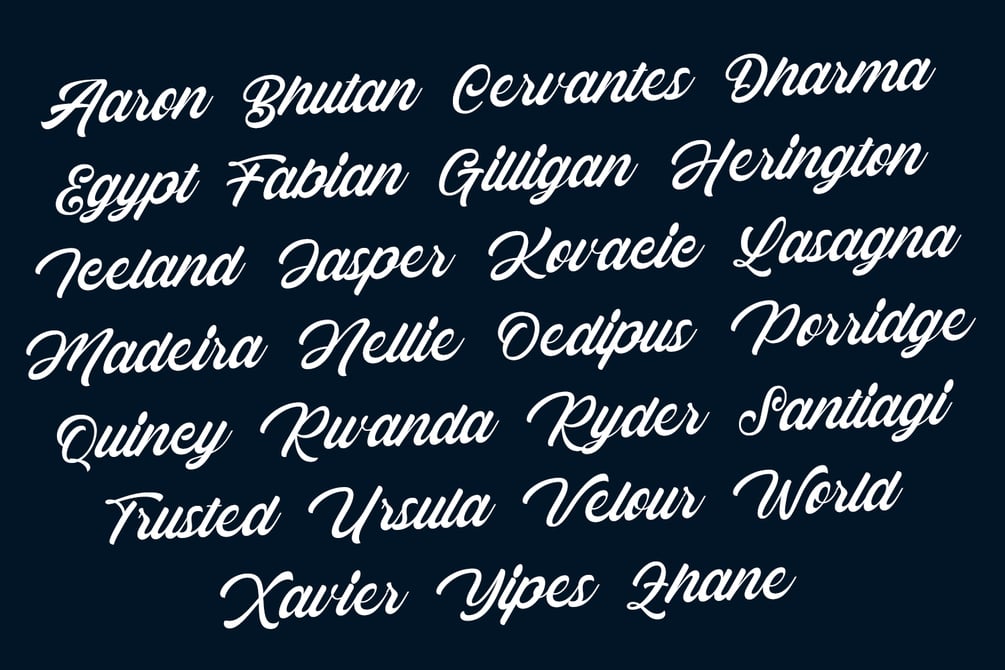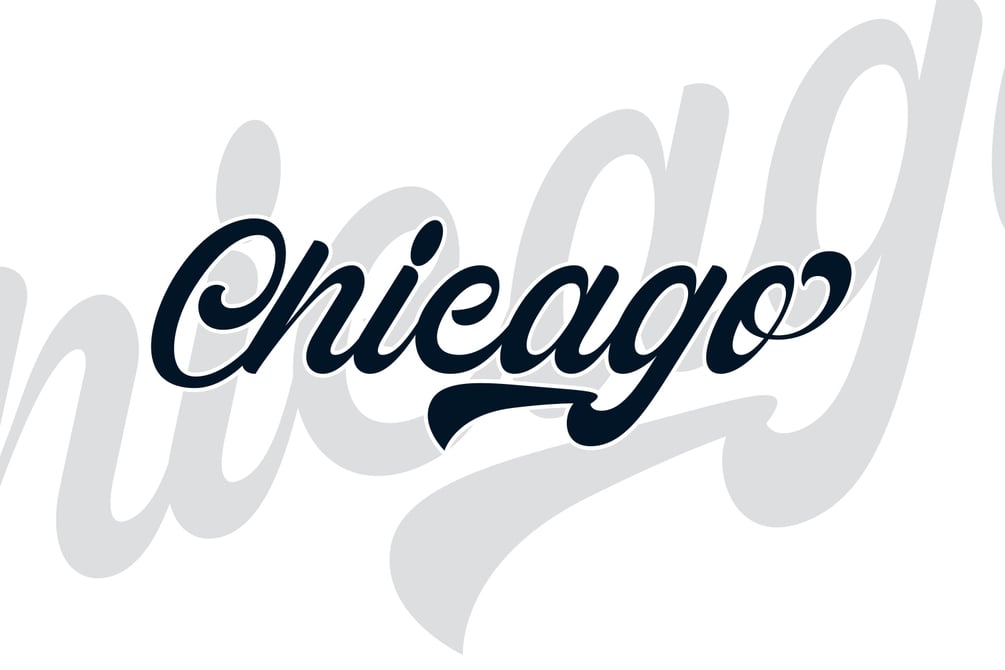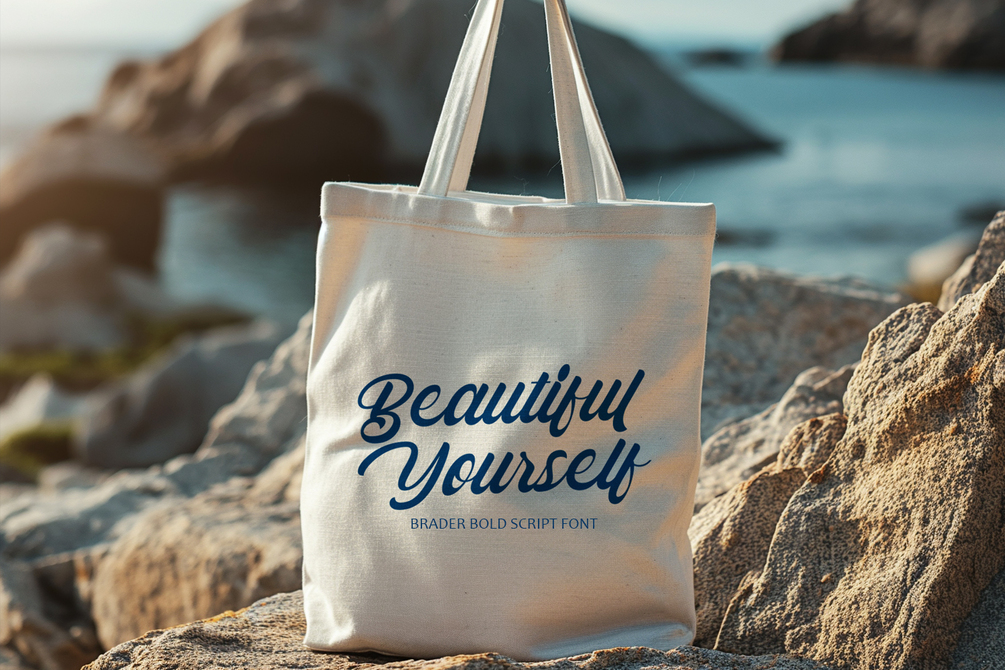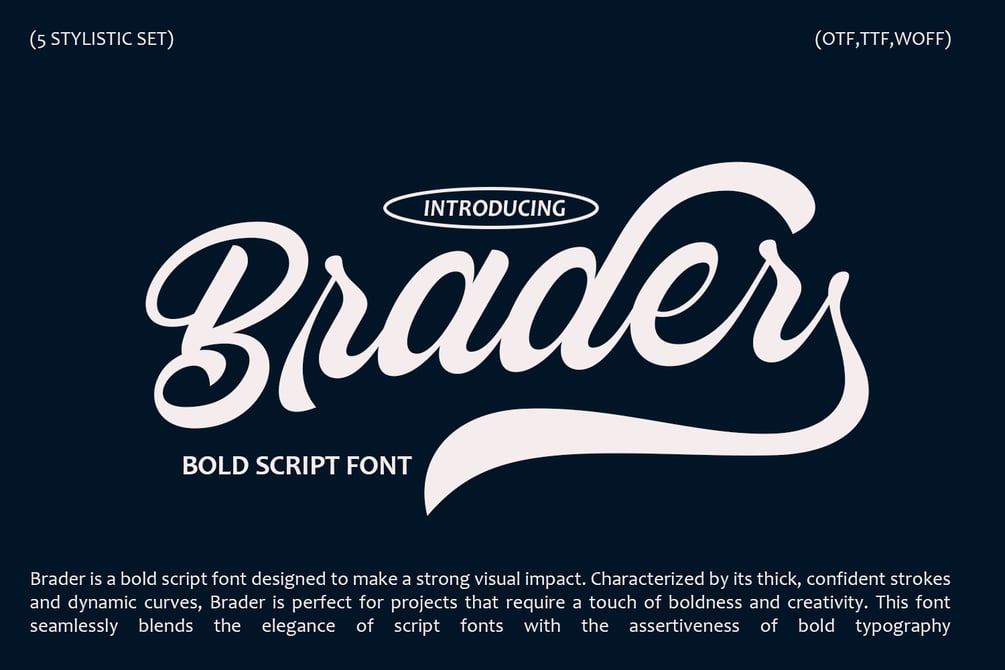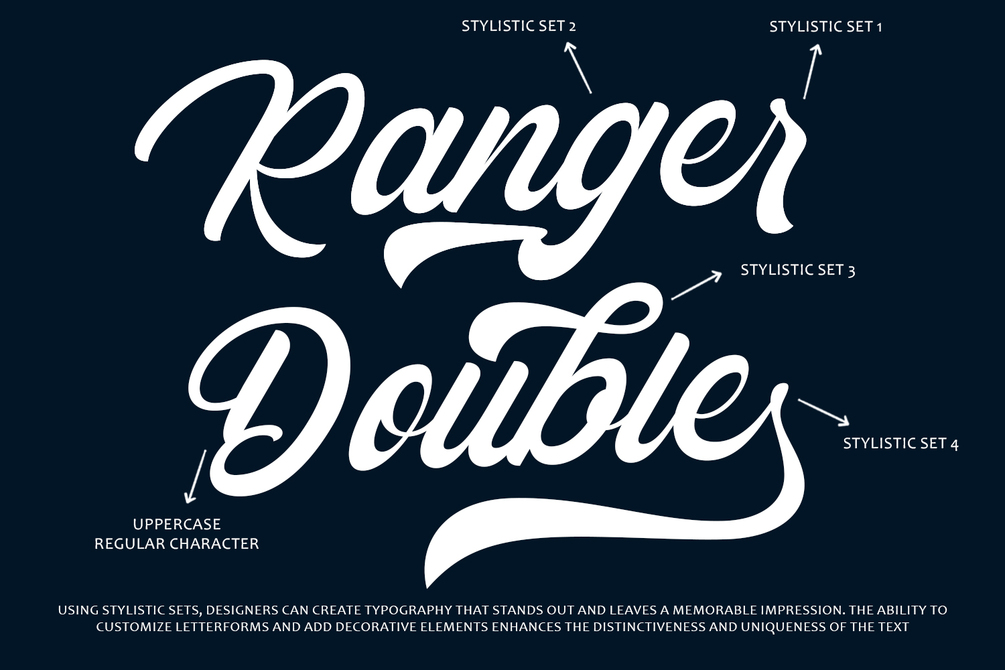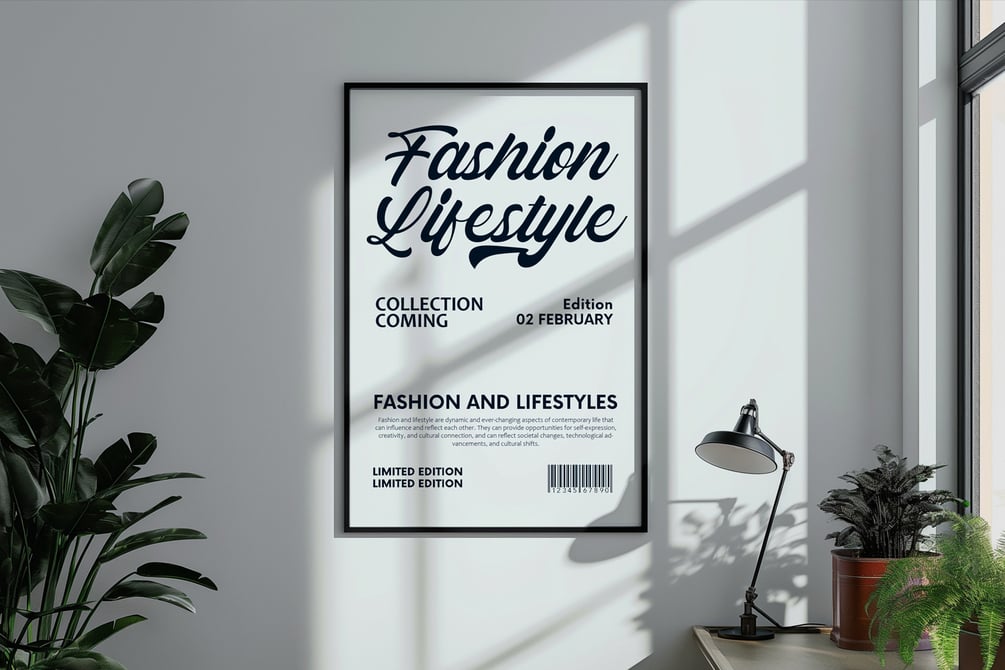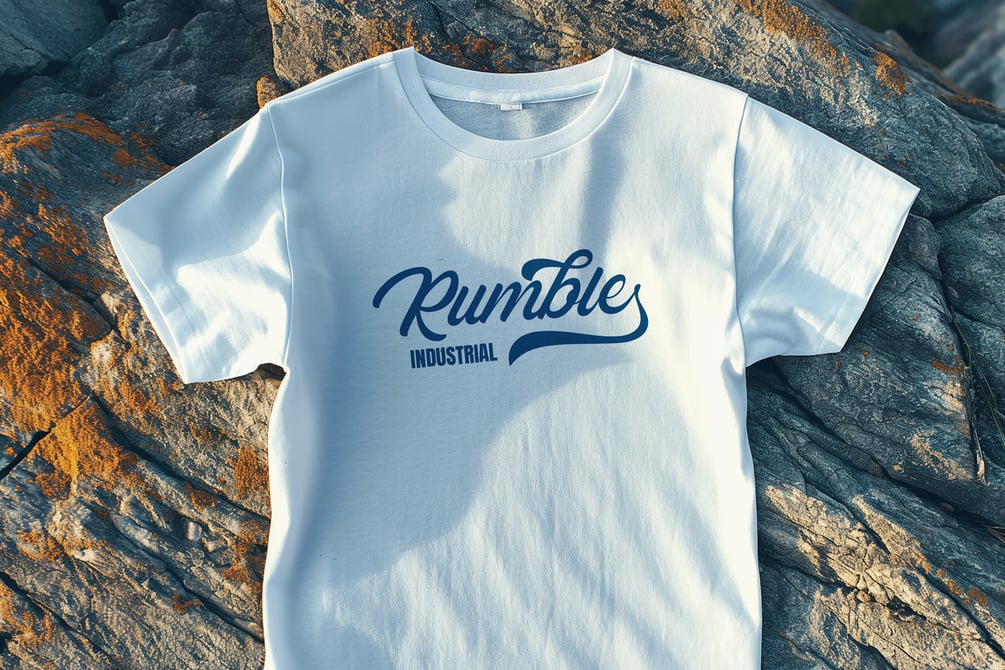
Brader Bold Script Font
Brader: A Bold Script Font
Overview:
Brader is a bold script font designed to make a strong visual impact. Characterized by its thick, confident strokes and dynamic curves, Brader is perfect for projects that require a touch of boldness and creativity. This font seamlessly blends the elegance of script fonts with the assertiveness of bold typography, making it a versatile choice for various design applications.
Key Features:
1. Bold and Dynamic Strokes:
- The font features thick, powerful strokes that command attention and add a sense of confidence to any design.
2. Smooth Curves and Flowing Lines:
- Brader maintains the fluidity and grace typical of script fonts, ensuring readability while providing an artistic flair.
3. Versatile Usage:
- Ideal for branding, logos, headlines, posters, and packaging, Brader is suitable for a wide range of creative projects.
4. Stylish Ligatures:
- Includes stylish ligatures that enhance the overall aesthetic and provide a custom, hand-lettered feel.
5. High Legibility:
- Despite its boldness, Brader retains high legibility, making it suitable for both display and text use.
Applications:
- Branding and Logos:
- Brader's bold presence makes it an excellent choice for creating memorable and impactful logos.
- Headlines and Titles:
- The font’s strong strokes ensure that headlines and titles stand out, capturing the viewer’s attention instantly.
- Posters and Flyers:
- Brader's dynamic style adds an eye-catching element to promotional materials, making them more engaging.
- Packaging:
- The font’s unique combination of boldness and elegance makes it ideal for product packaging, adding a touch of sophistication and appeal.
Features :
Uppercase and lowercase characters
Stylistic set
Conclusion:
Brader is a bold script font that effortlessly combines strength and elegance. Its dynamic strokes and fluid curves make it a standout choice for designers looking to add a bold, artistic touch to their projects. Whether for branding, headlines, or promotional materials, Brader delivers a powerful visual statement.